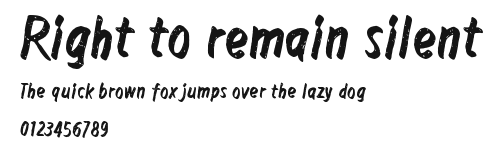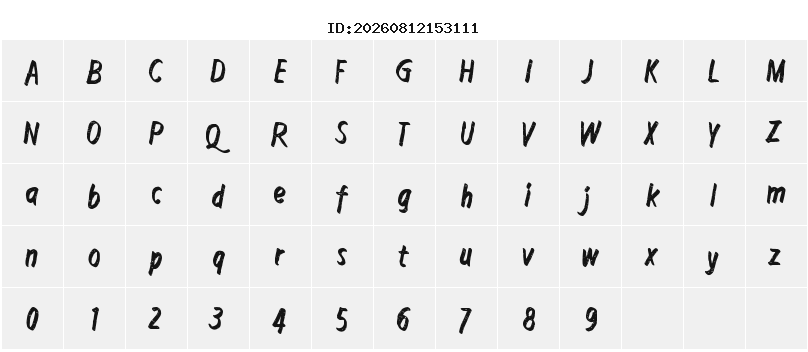
Right to remain silent Preview
• Font Name: Right to remain silent
• Font ID: Right to remain silent:Version 1.00
• Full Font Name: Right to remain silent
• Version: Version 1.00 November 20, 2015, initial release
• PostScript Name: Righttoremainsilent
• Character Count: 217
About Right to remain silent.ttf
Right to remain silent.ttf is a modern, elegant sans-serif font designed for ultimate readability and visual harmony. Perfect for branding, headlines, web design, and print materials.